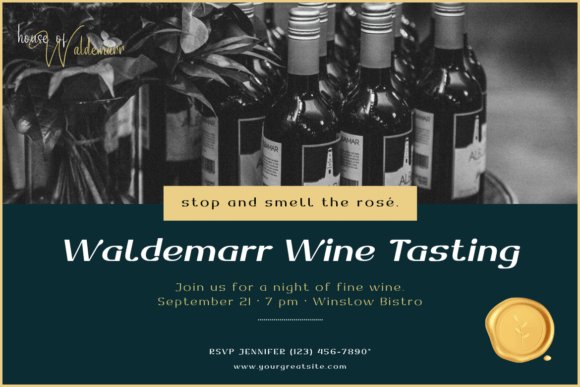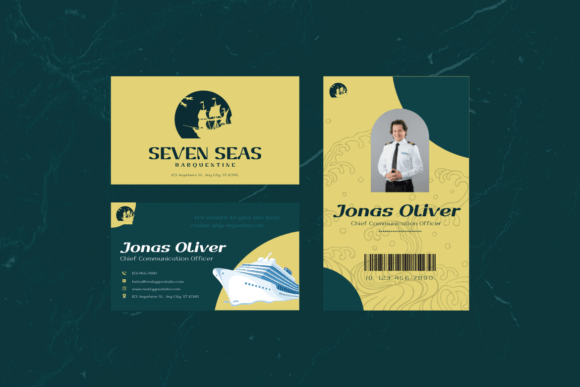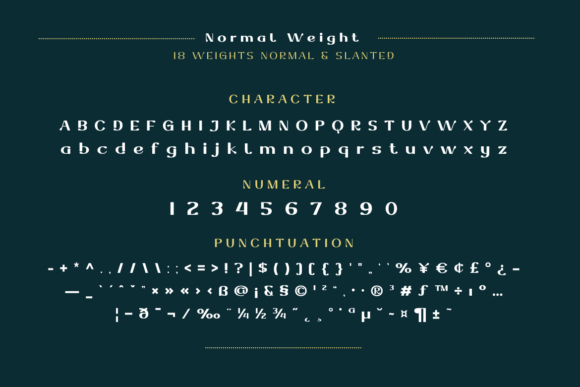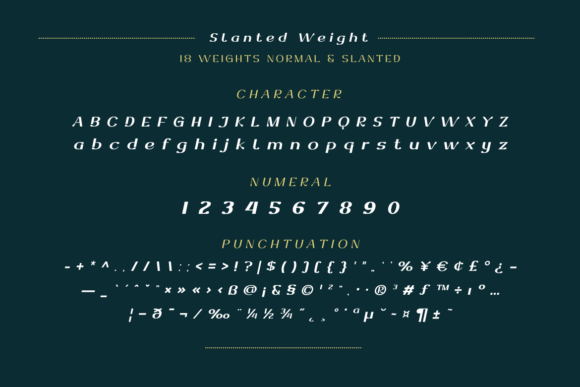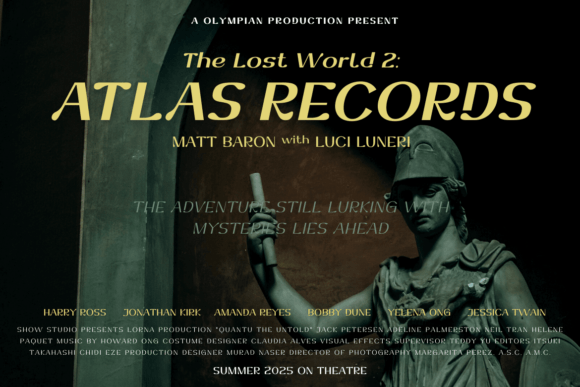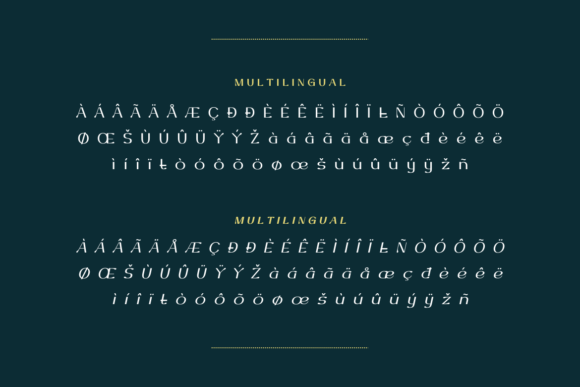
Unlock the Power of Typography with Dofend Font
Have you ever stared at a blank canvas, wondering what words would bring your design to life? That moment of creative block is all too familiar for designers. But what if you had the perfect tool to spark your imagination? Enter Dofend Font, a luxurious font family that’s about to become your new best friend.
This stunning font family boasts 18 different styles, making it the ultimate go-to for designers. From logos to posters, Dofend Font is the perfect choice for creating eye-catching graphic designs. Whether you’re working on a title, subtitle, or sentence text, this font family has got you covered. With its unique personality and beauty, Dofend Font is the secret ingredient that will take your designs from ordinary to extraordinary.
Dofend Font Key Features
- Font Family: Dofend Font is a sans-serif font family, available in various weights and styles.
- Unique Characteristics: Dofend Font features a unique blend of modern and geometric elements, with clean lines, rounded corners, and a high x-height.
Dofend Font Review
First impressions of the Dofend font are quite striking. The unique blend of futuristic and minimalist styles is quite compelling ✨. The font’s ability to adapt to different sizes and resolutions is also noteworthy, making it a great choice for digital applications.
However, I do have some concerns about the font’s limitations ⚠️. The character set is relatively limited, which may not be ideal for projects requiring a wide range of languages or special characters. Additionally, the font’s legibility can be affected by certain line heights or spacing, which may require some tweaking to get right.
- ✨ Unique and modern design aesthetic
- ✨ Adaptable for different sizes and resolutions
- ⚠️ Limited character set
- ⚠️ May require adjustments for optimal legibility
Overall, I think the Dofend font has a lot of potential, but it may not be the best choice for every project. If you’re looking for a font with a bold, futuristic look and are willing to work around its limitations, then Dofend might be a good fit. However, if you need a font with a wider character set or more flexibility, you may want to consider other options.
The Dofend font is a versatile font suitable for various design projects, including:
– Logos and branding materials
– Infographics and presentations
For optimal results, use the Dofend font in combination with high-quality images and design elements to create visually appealing and engaging designs.